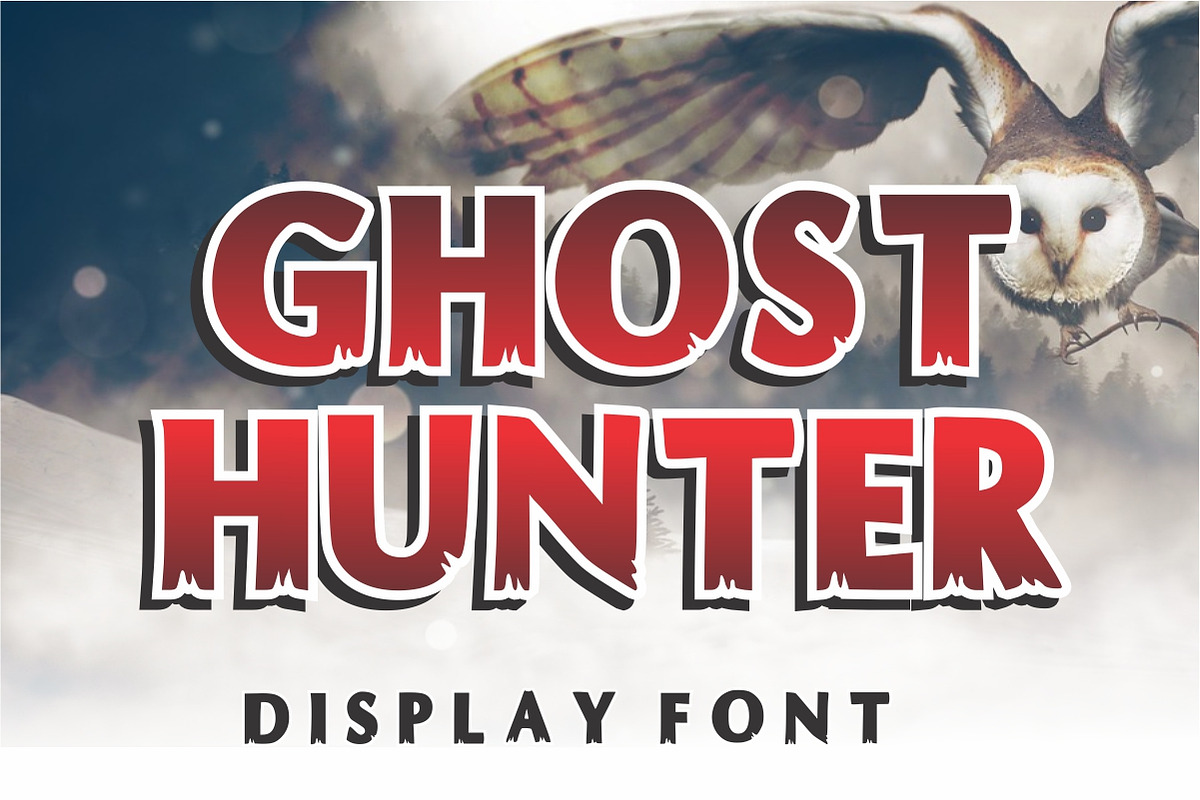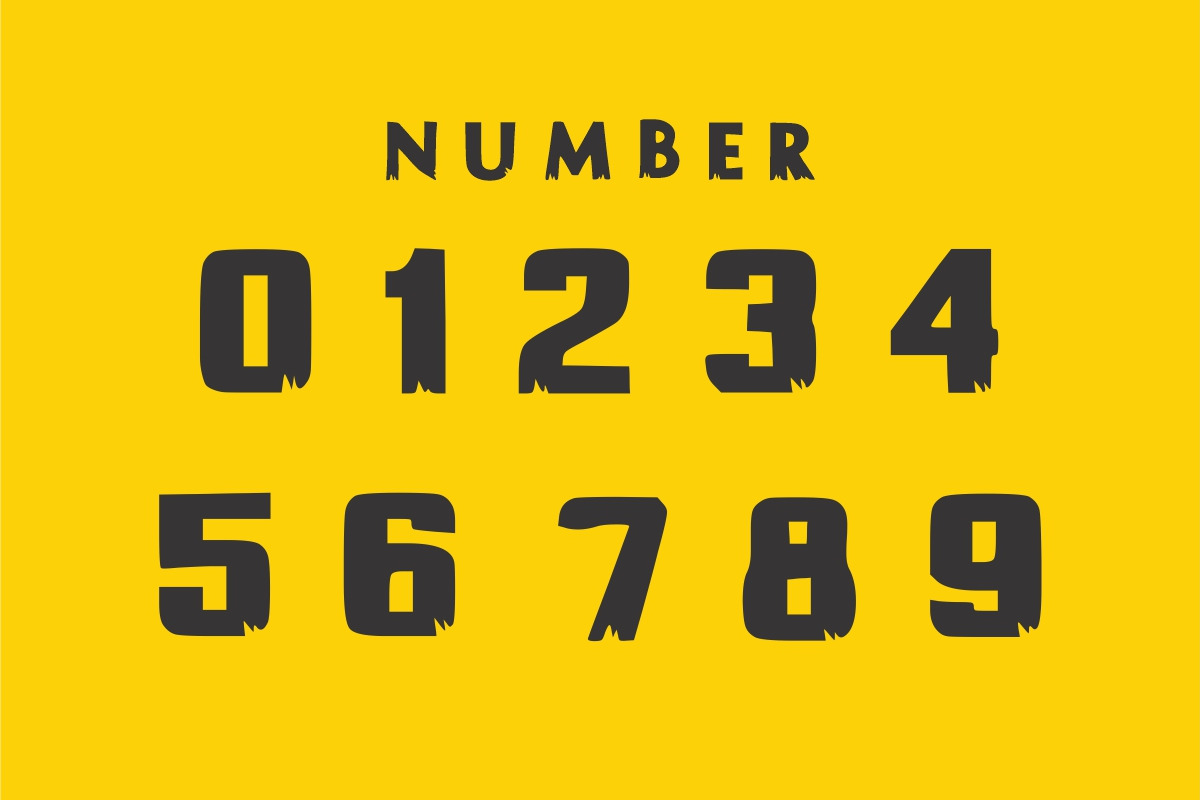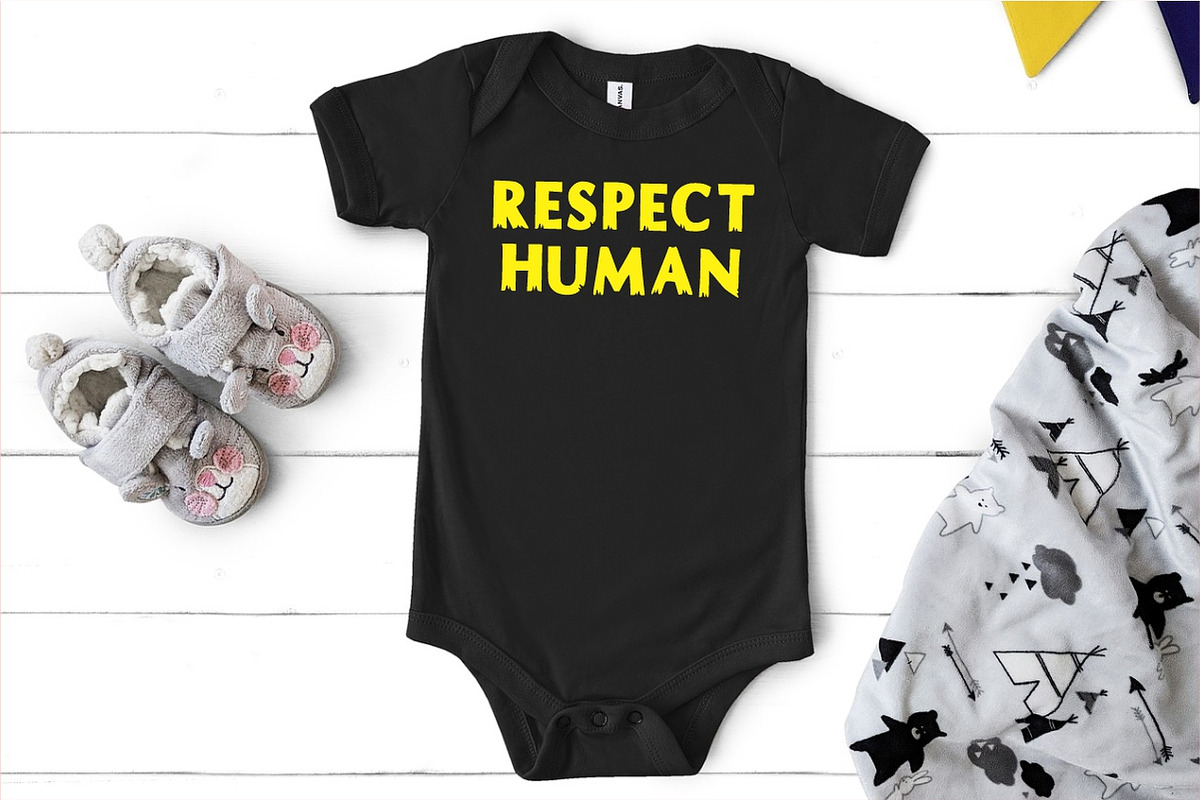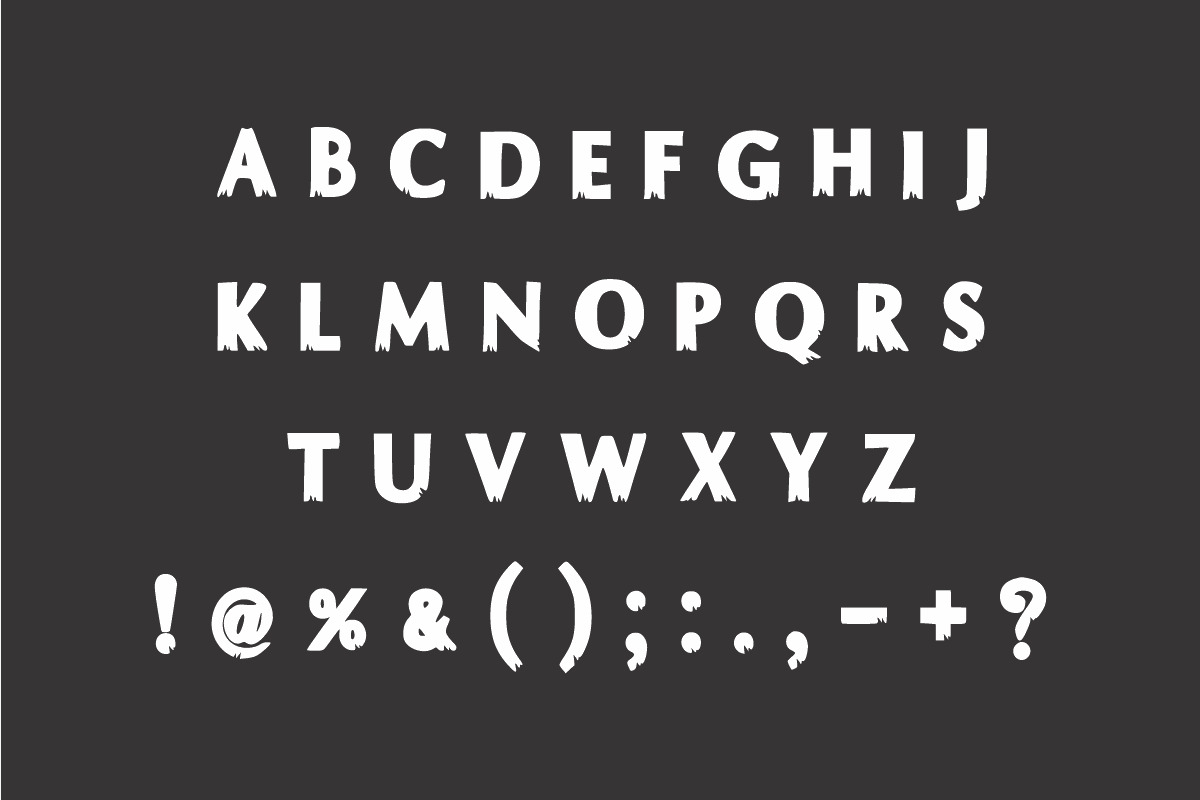
Ghost Hunter
Ghost Hunter is an aesthetic and cool display font. Its informal and casual style makes it a top choice for any creation. It will look cool on visual designs and works such as product packaging, T-shirts, labels, and posters.